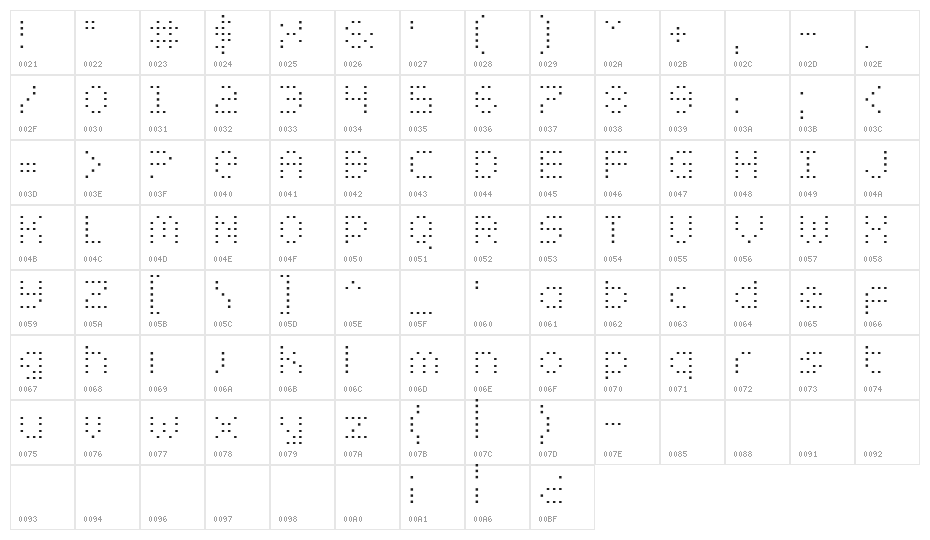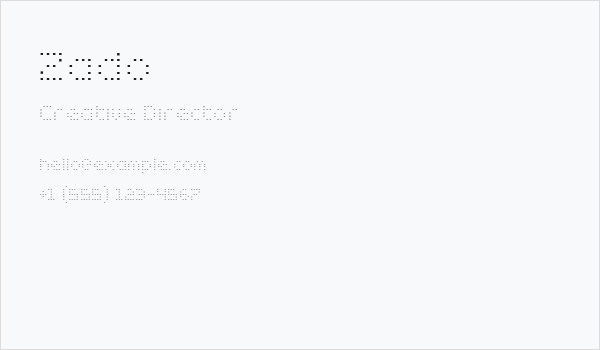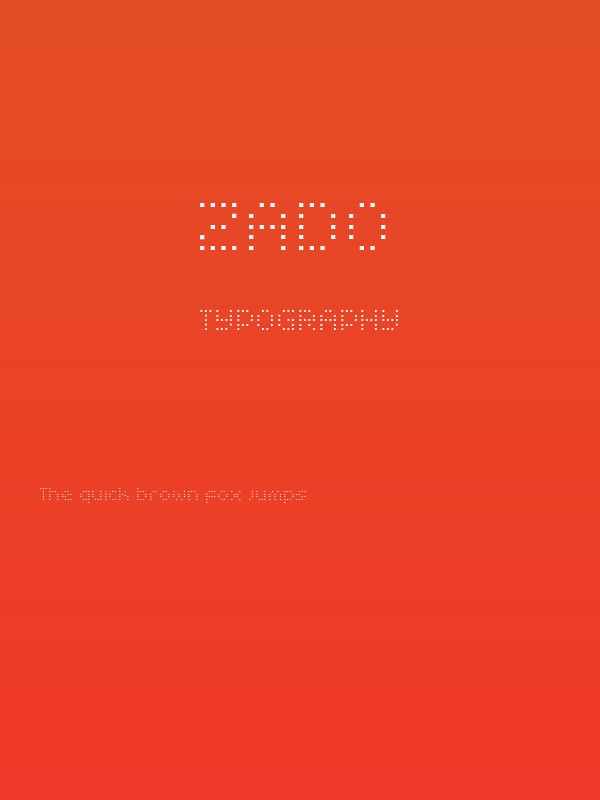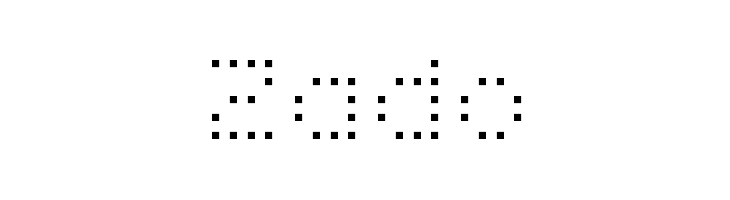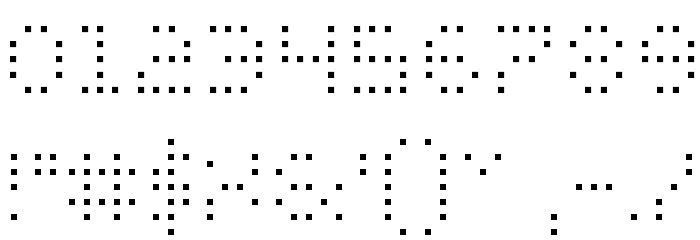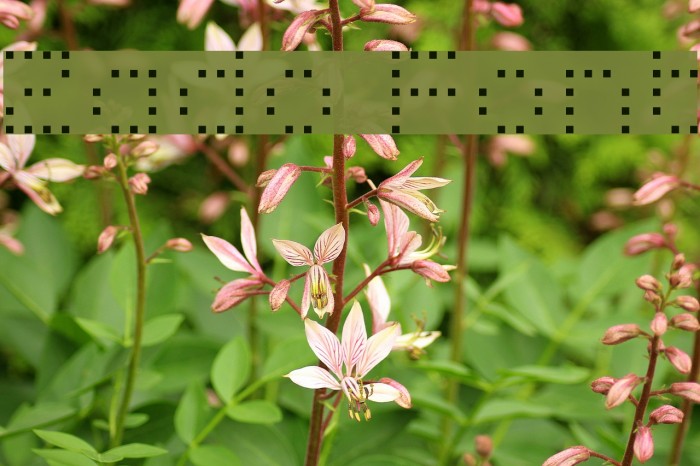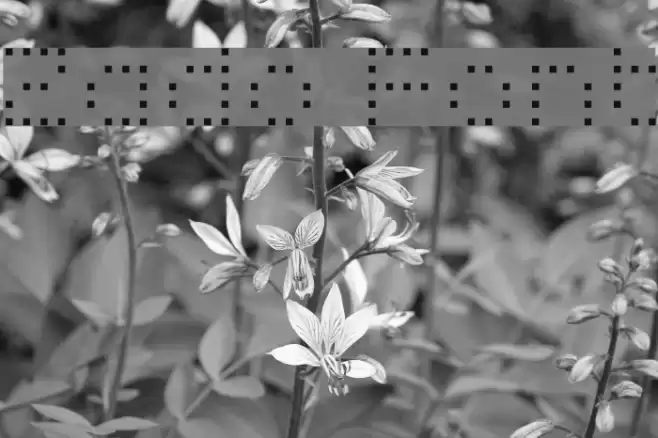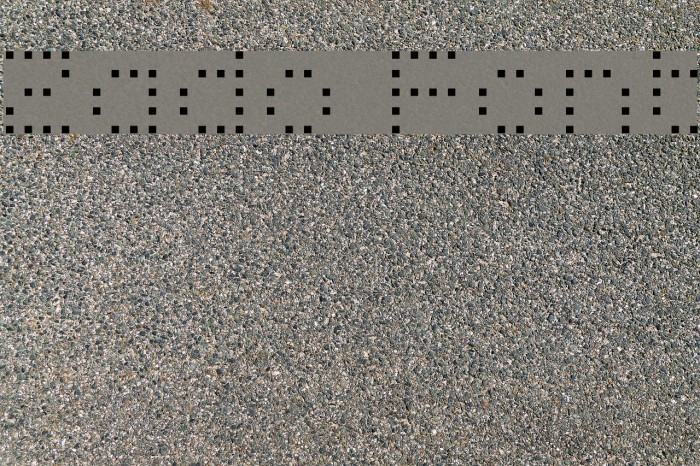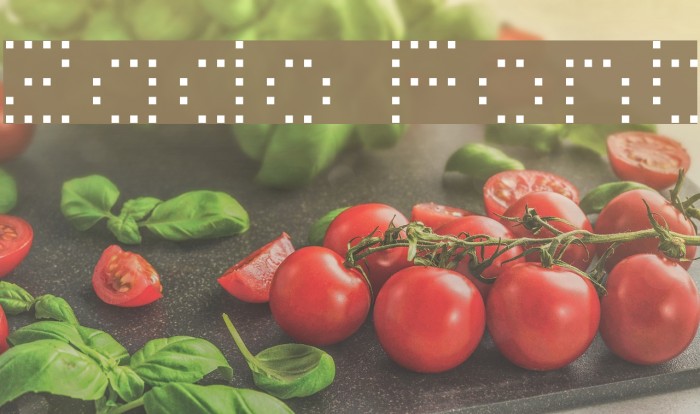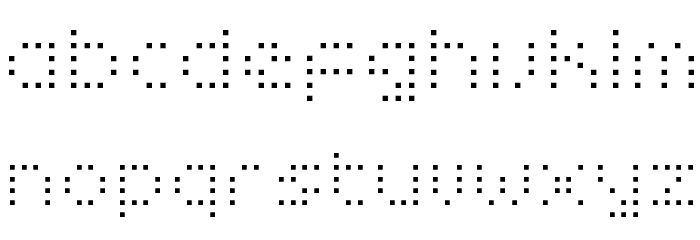
Zado Font
This font features a unique dot matrix style, reminiscent of old digital displays and dot matrix printers. Each character is constructed from a grid of dots, giving it a pixelated appearance. The design is consistent across uppercase, lowercase, numbers, and special characters, maintaining a uniform dot pattern. This style evokes a sense of nostalgia and is ideal for projects that aim to capture a retro or tech-inspired aesthetic. The spacing between the dots is even, ensuring legibility while maintaining the distinctive digital look.
| Overall Style | Vintage |
| Use Case | Logos, Headlines, Digital Art |
| Proposed Projects | Ideal for retro-themed designs, tech-inspired projects, digital art, and vintage computer graphics. |